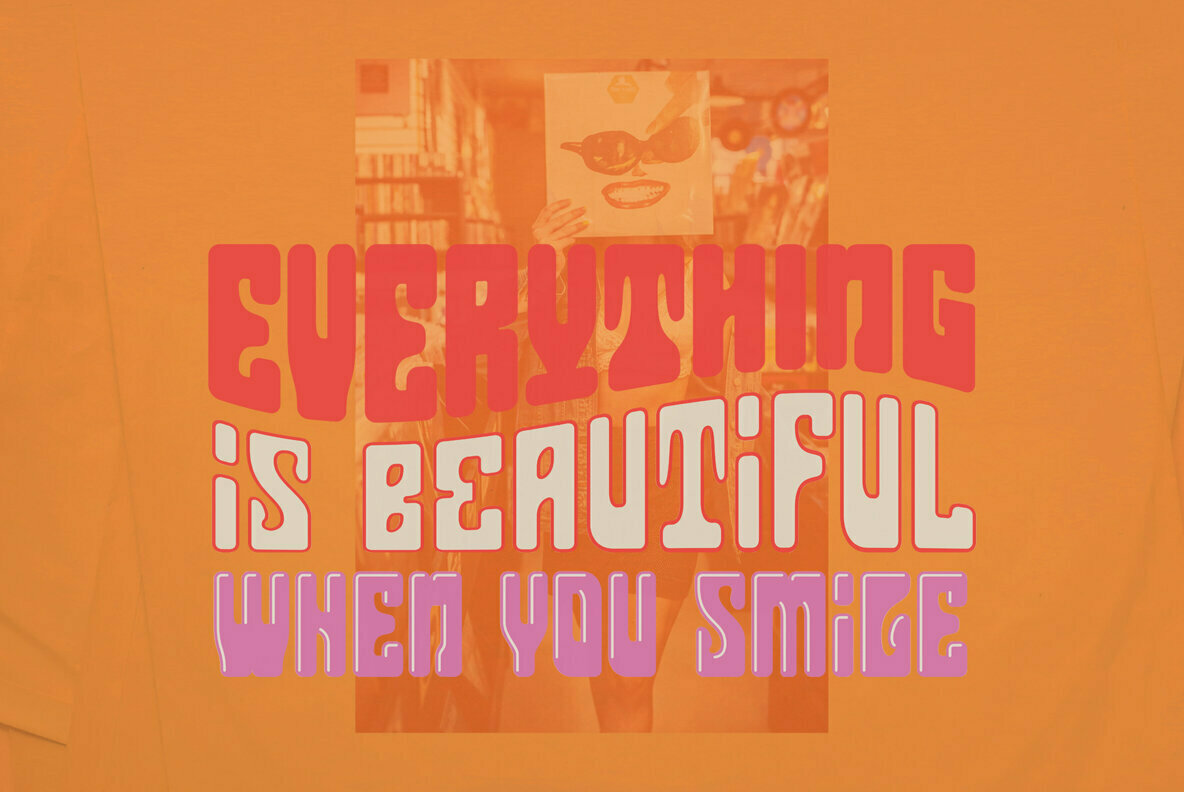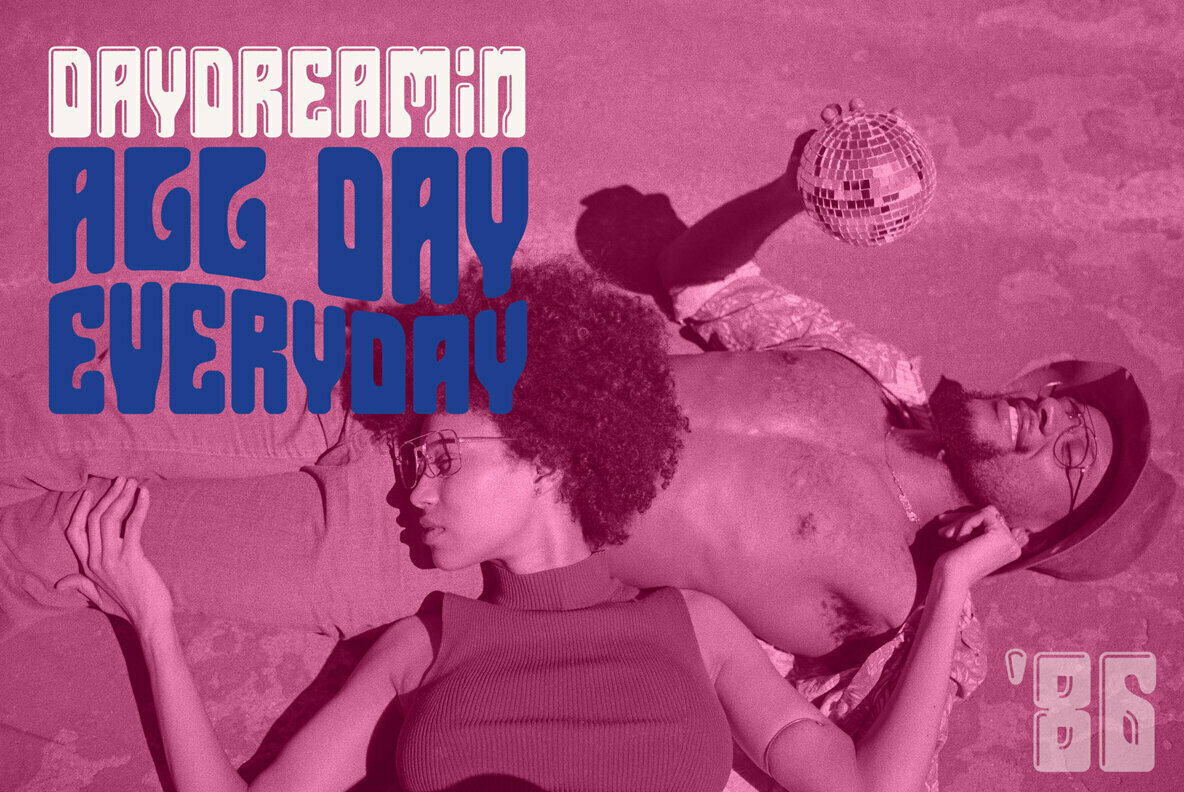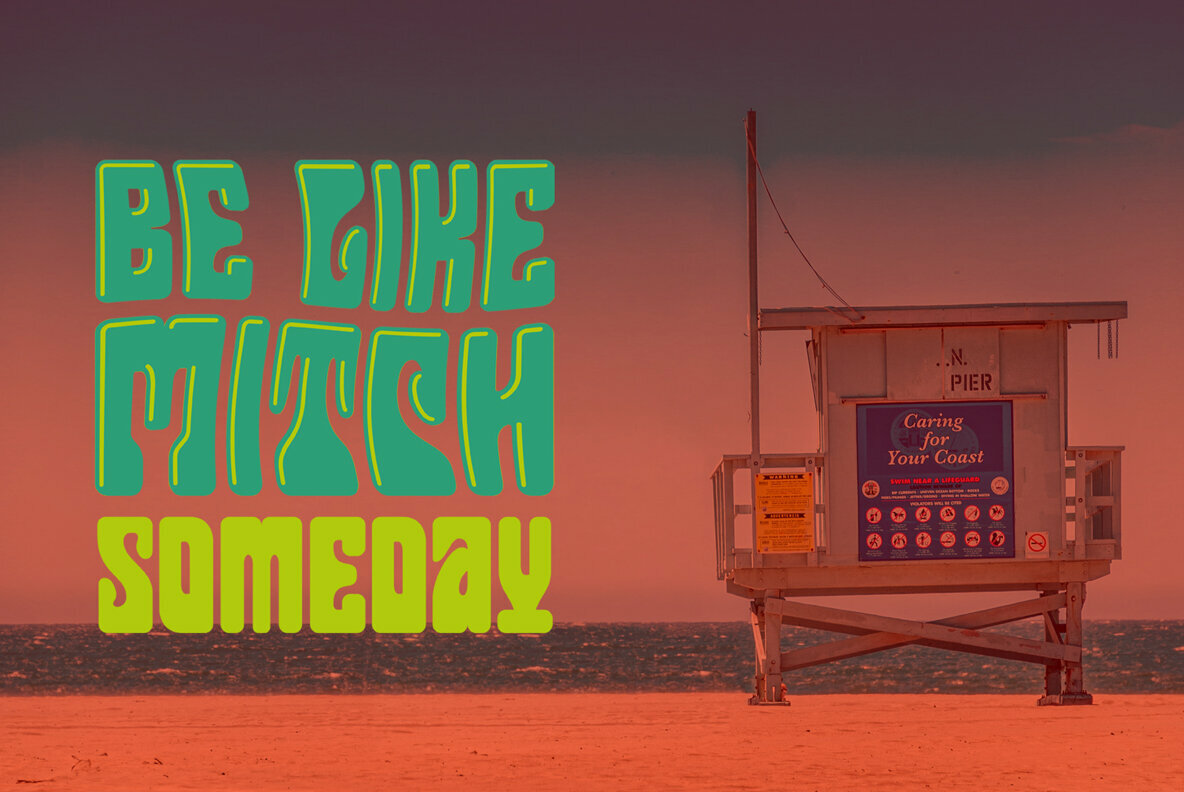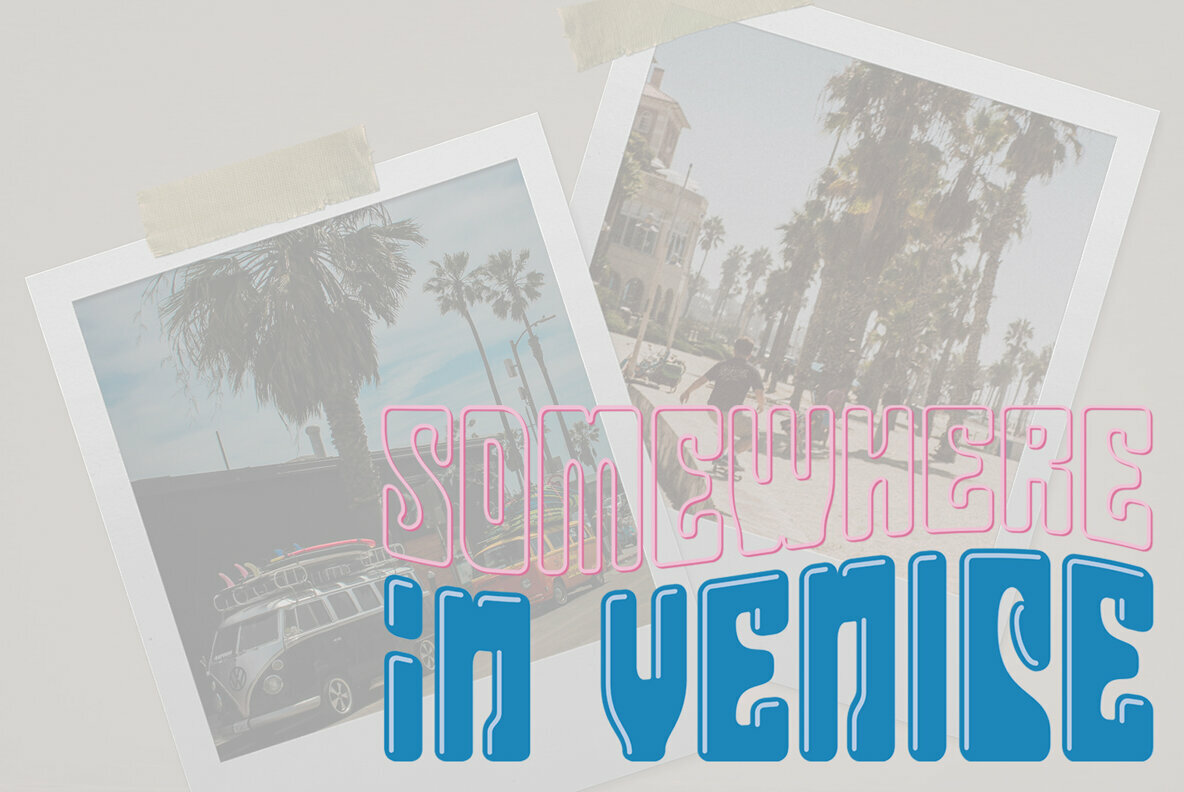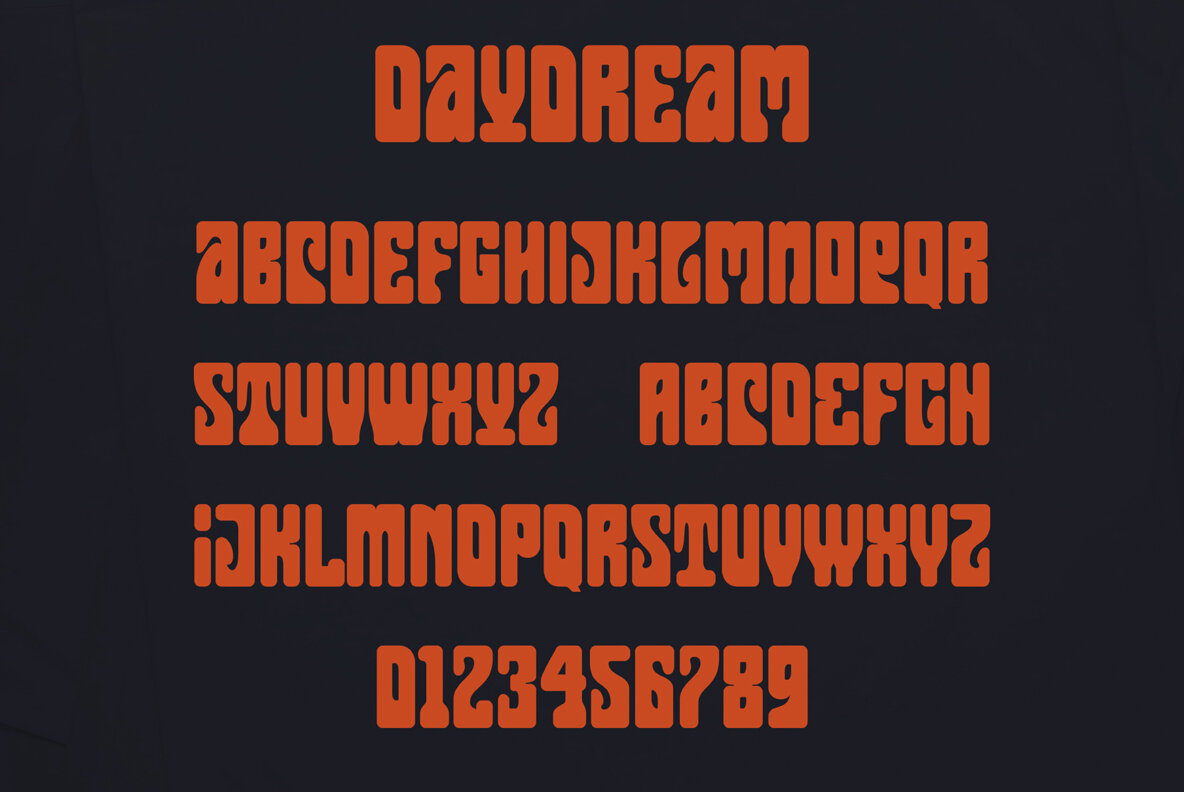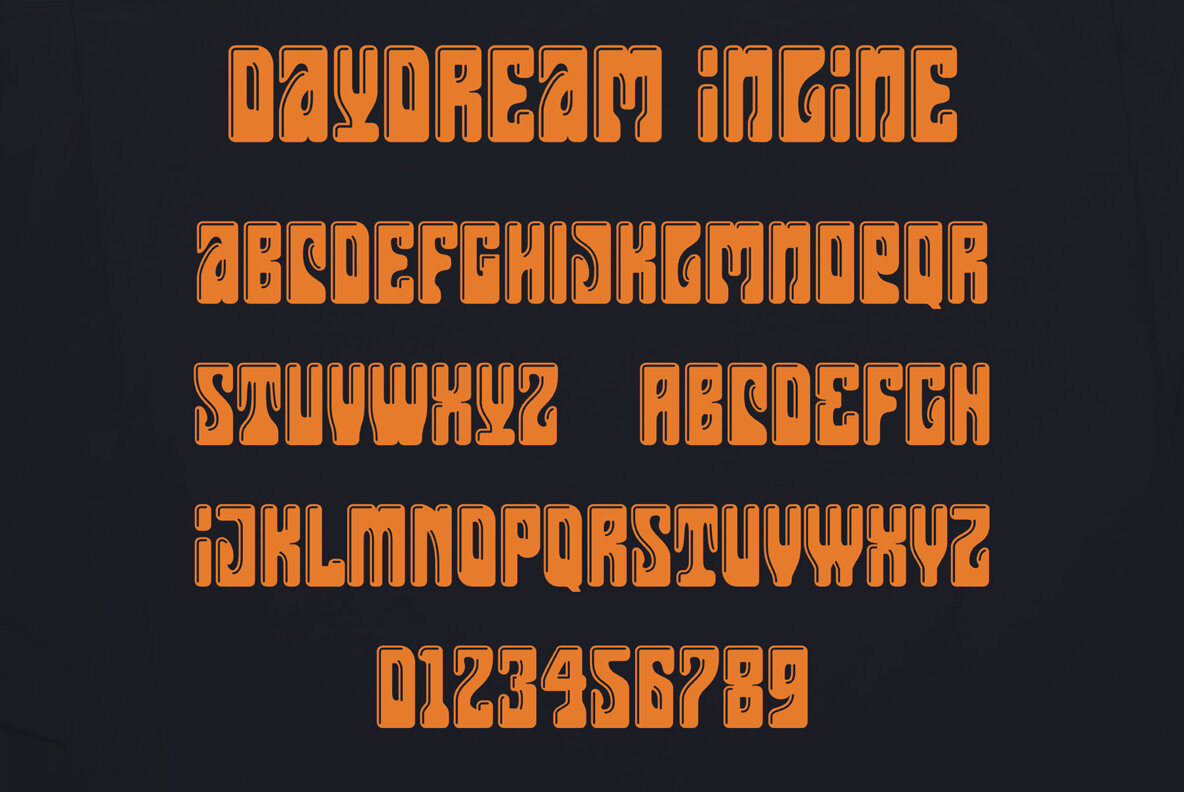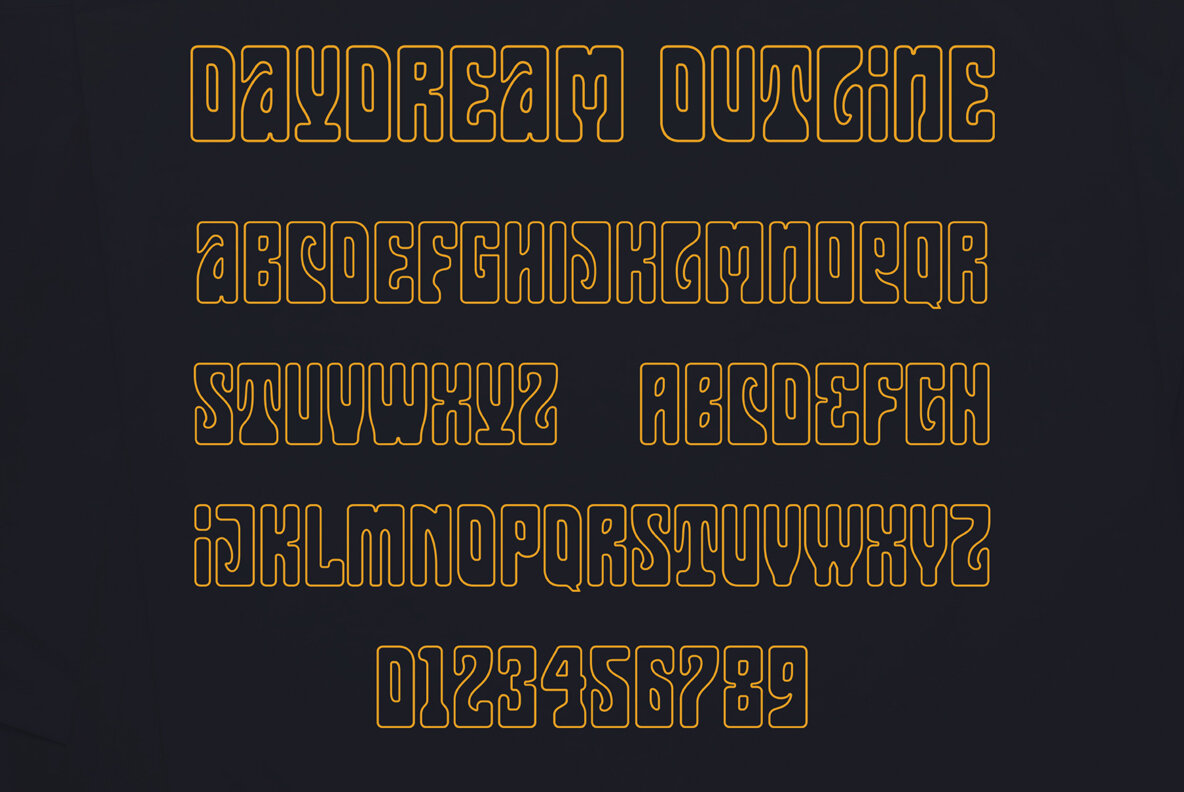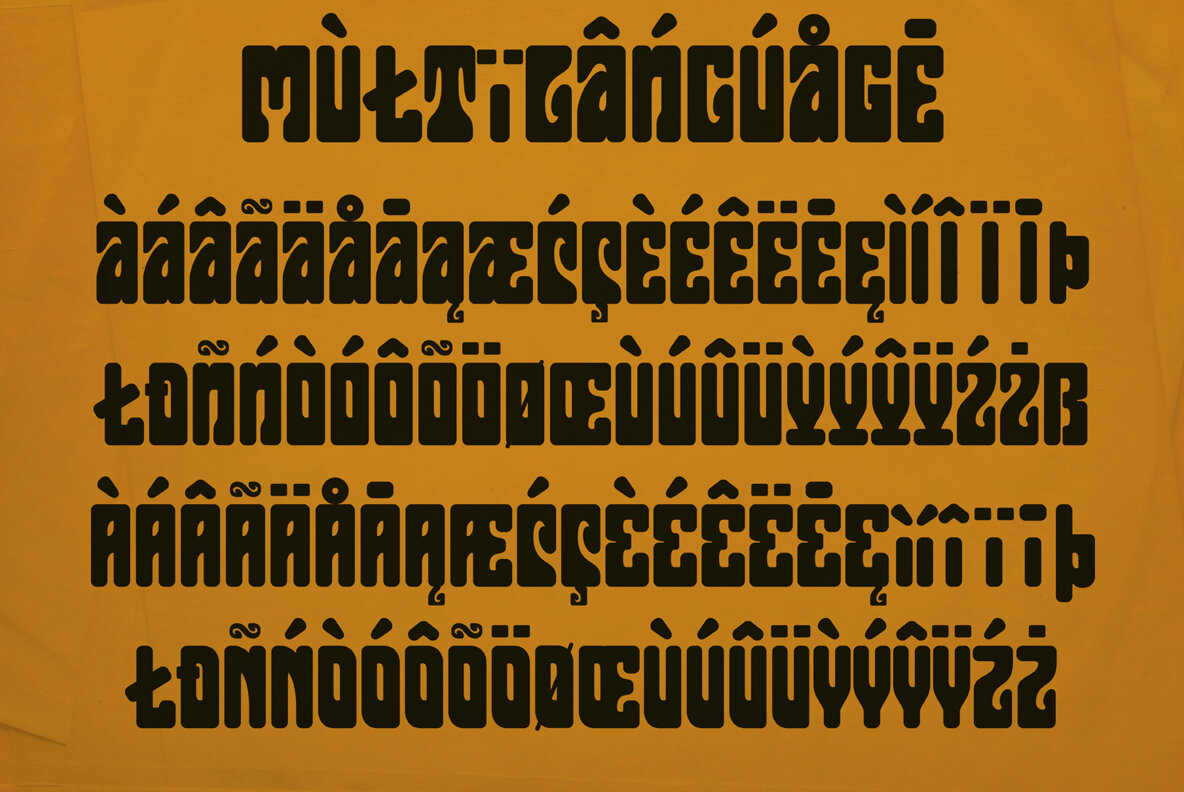
Daydream: A Psychedelic Typeface for Creative Projects
Daydream offers a distinctive flair for your psychedelic projects. This versatile typeface provides three unique styles, ensuring a wealth of typesetting options. Whether designing for social media or crafting labels for products, Daydream ensures cohesive visual appeal.
• Three distinct styles for varied design possibilities
• Ideal for digital and print applications
• Perfect for social media graphics and retail branding